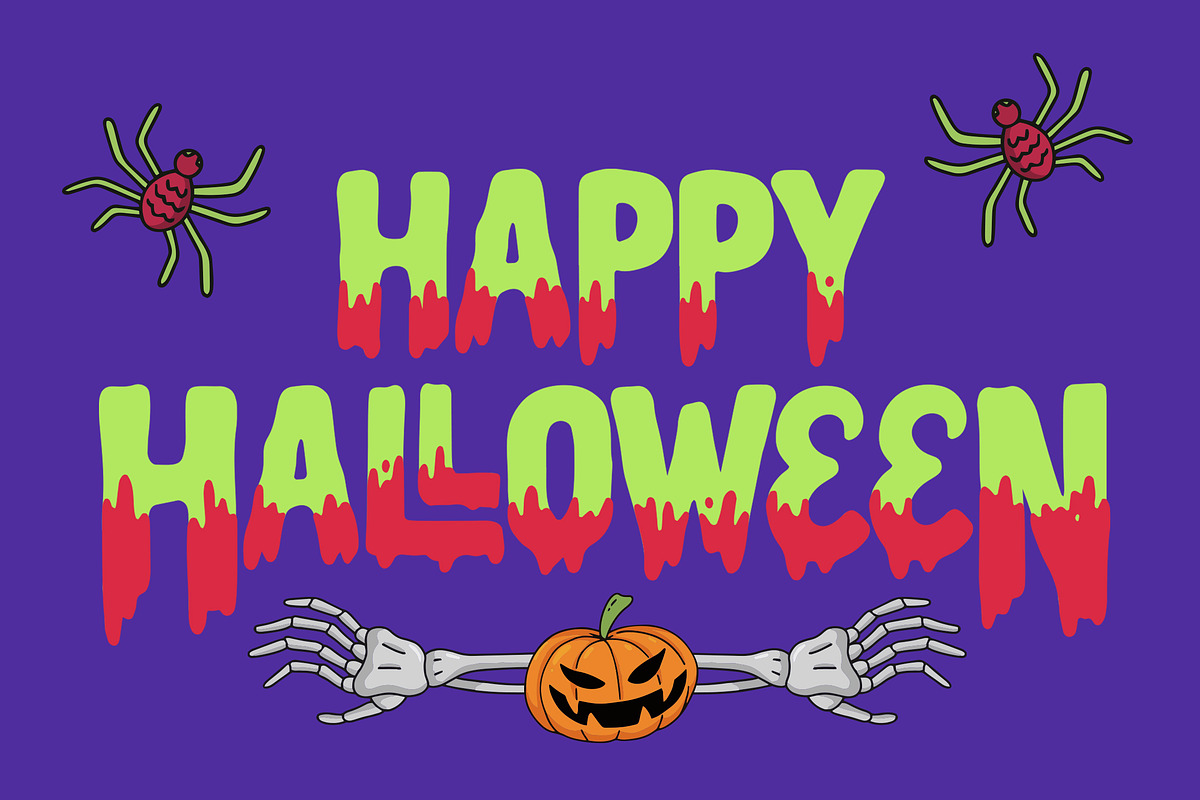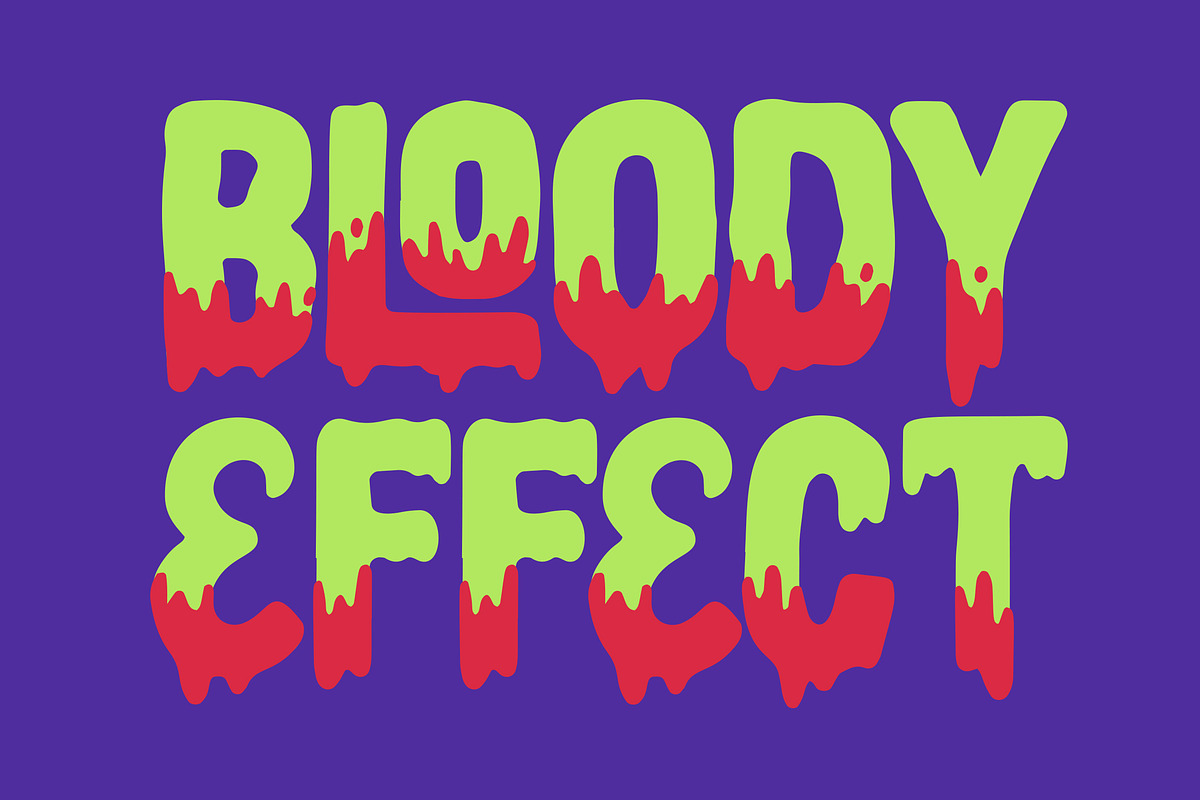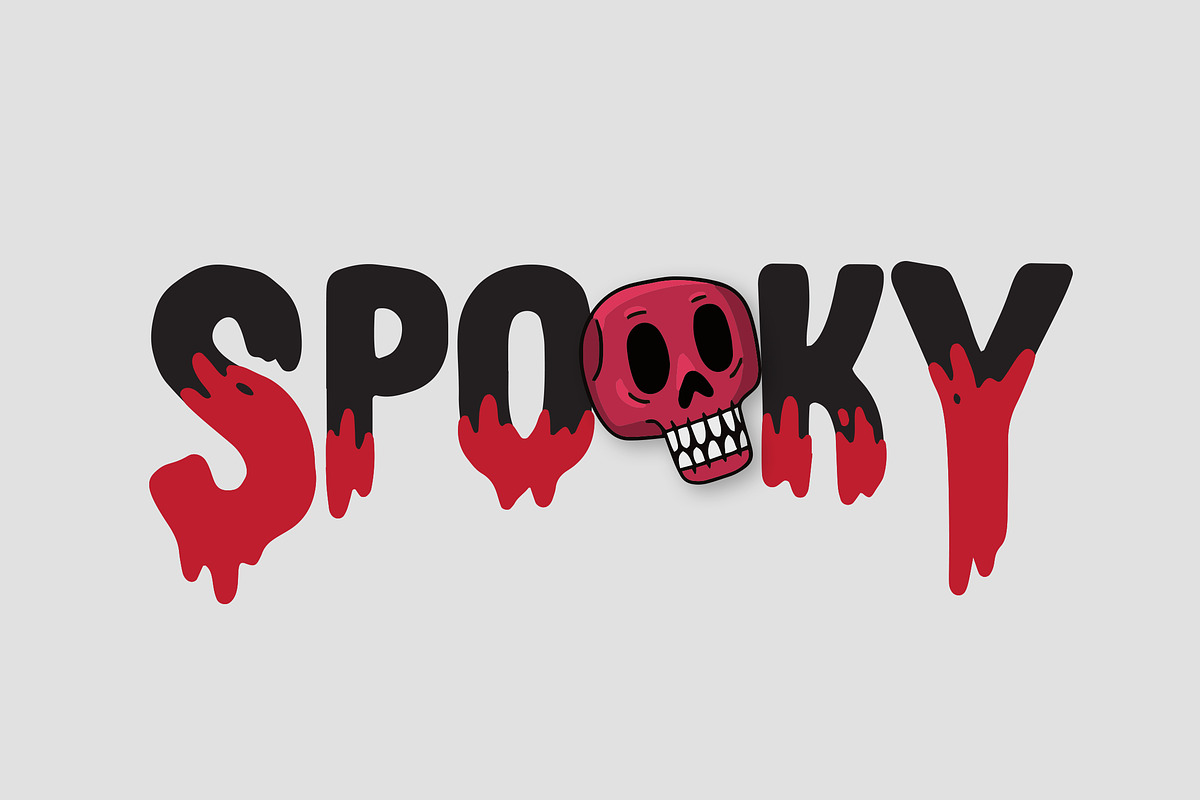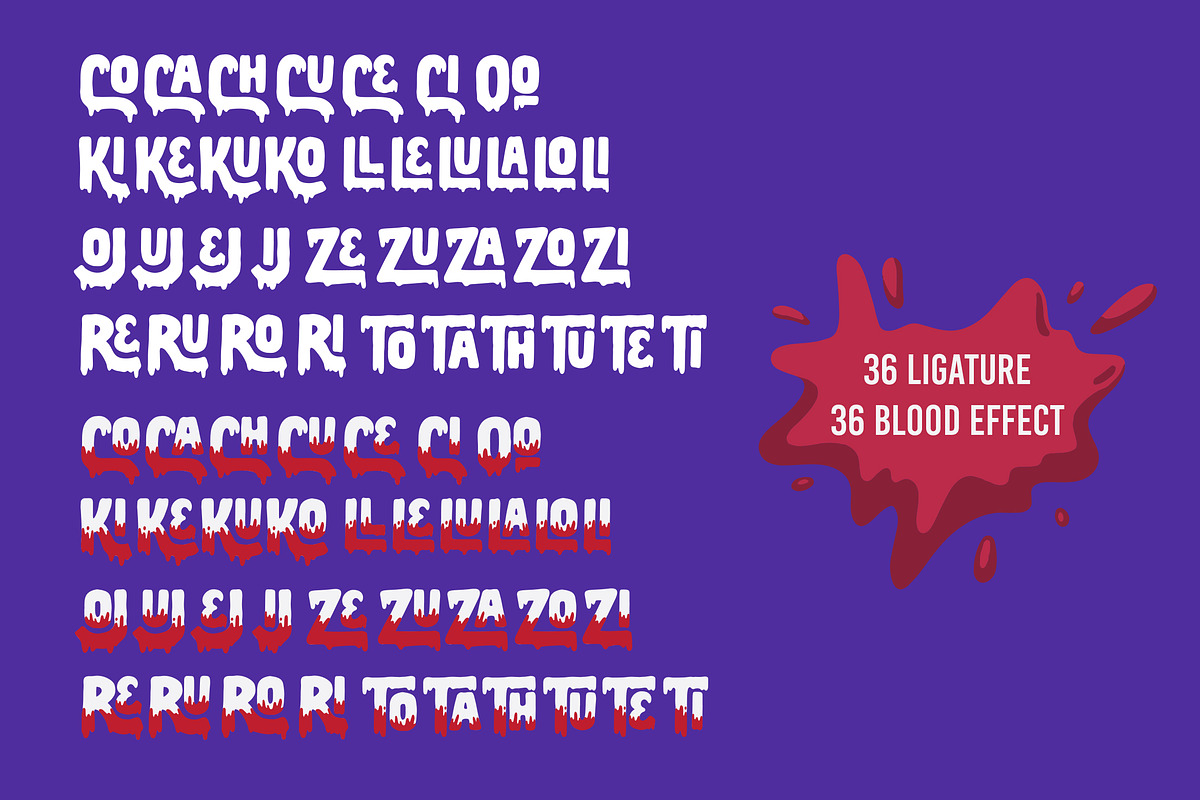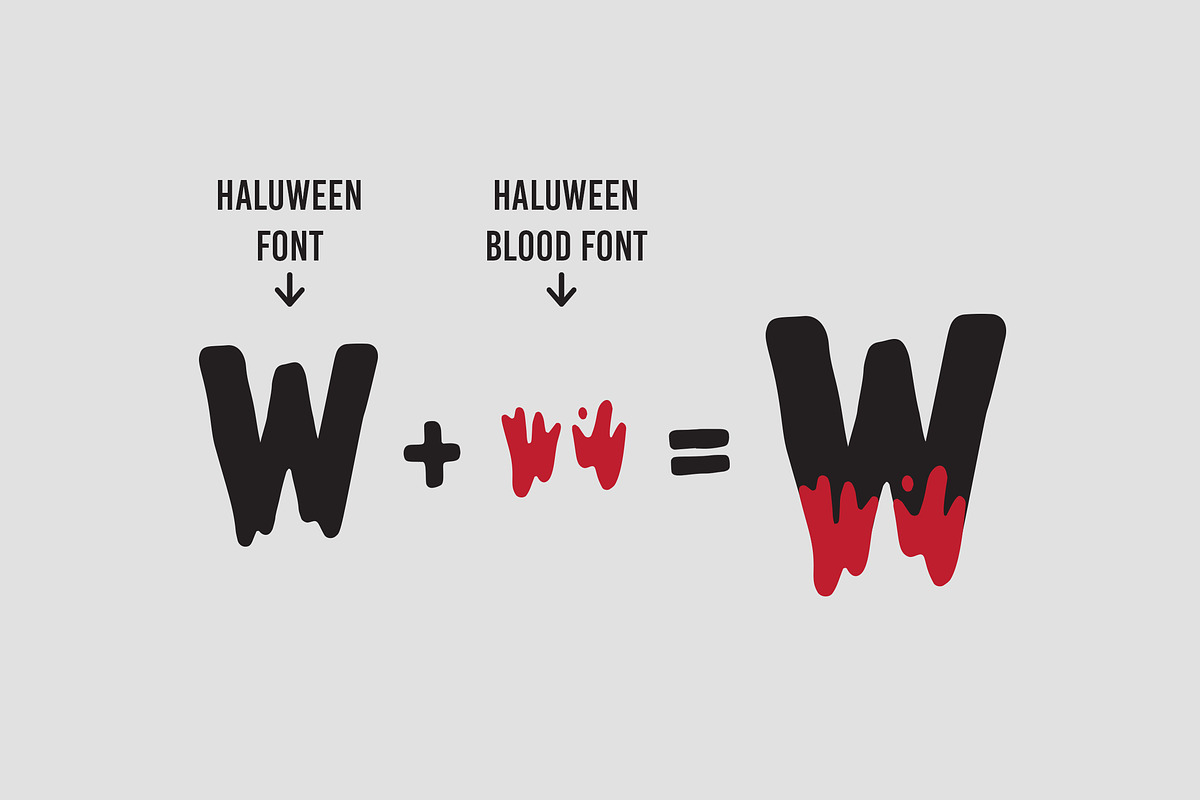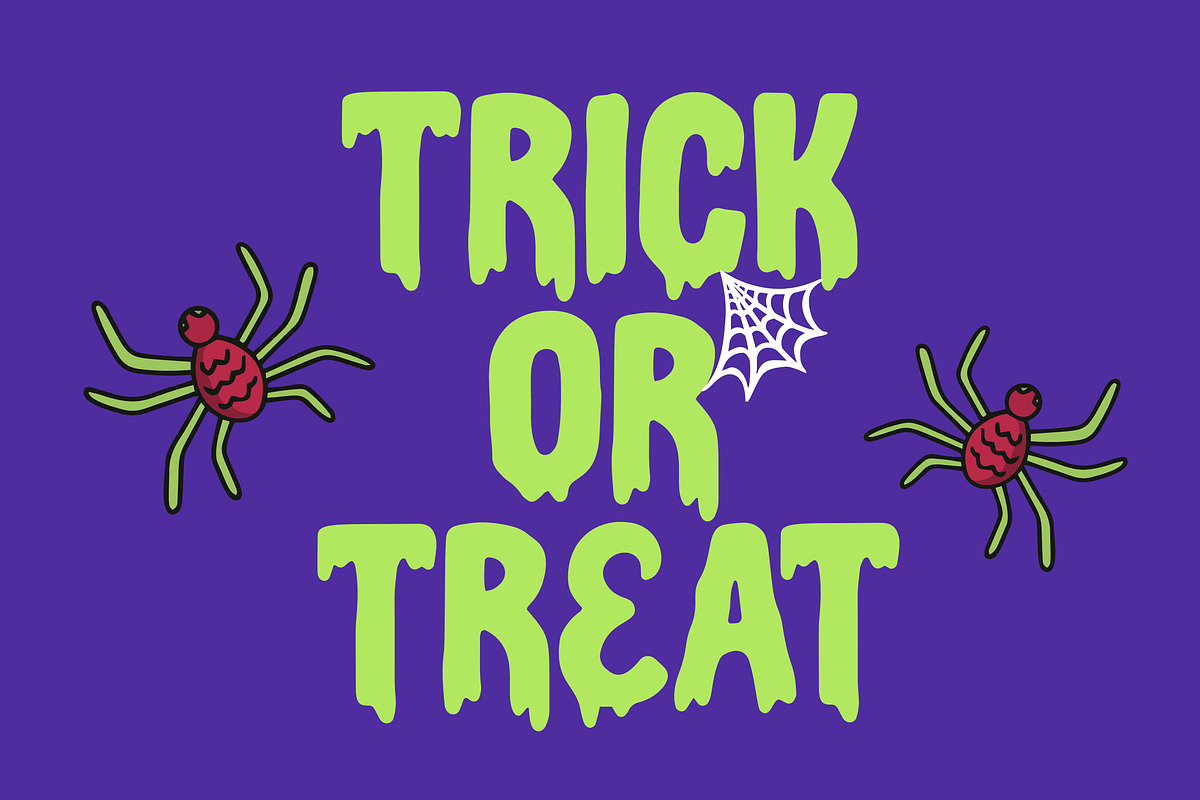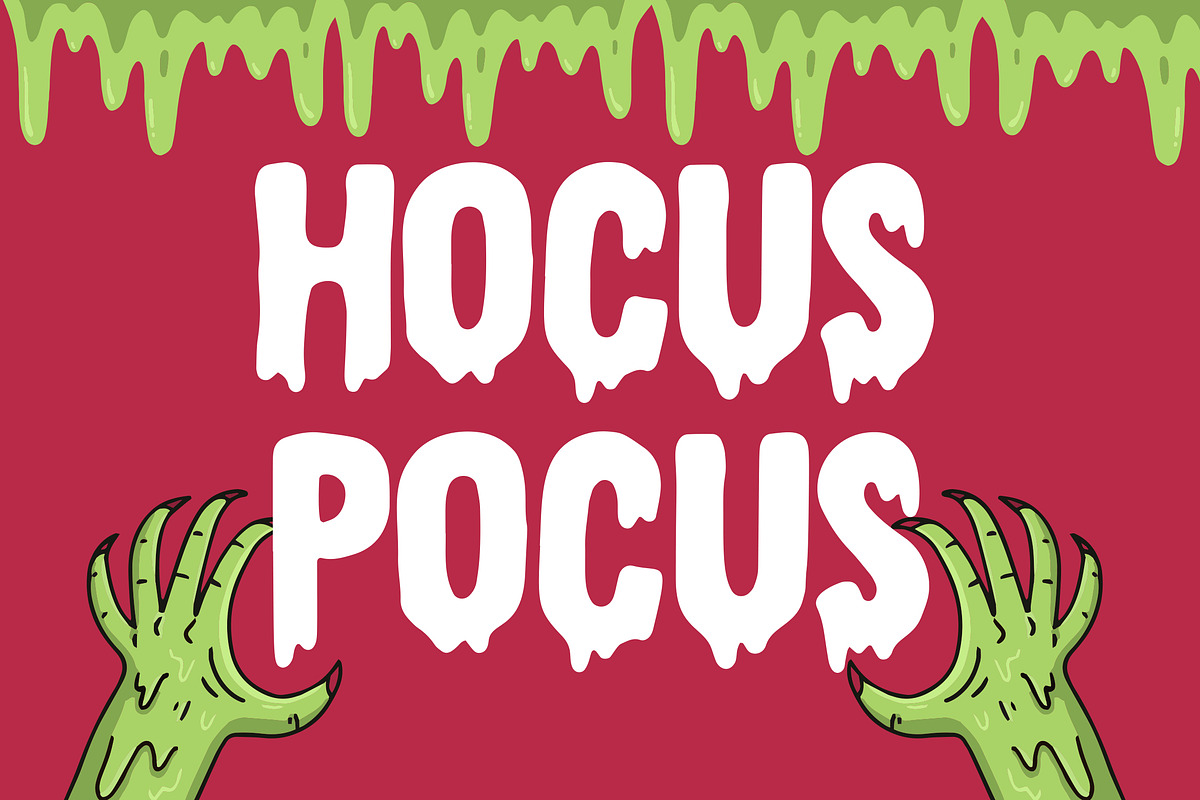
Haluween Fonts | Bloody Effect
Haluween fonts can be used for various media like a Halloween Party, Christmas event, invitations, posters, movie titles, book titles, social media, logos, branding, and others.
36 ligature + 36 ligature blood effect